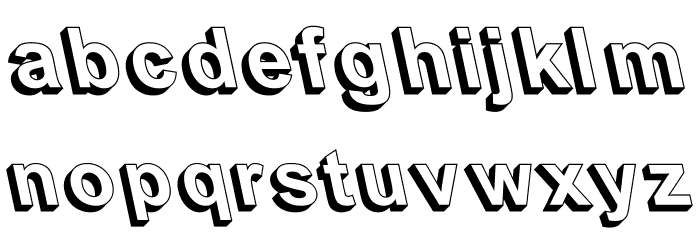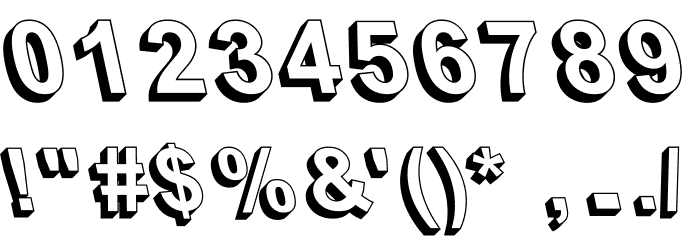
UKIJ Kufi 3D Font
This font features a bold, three-dimensional appearance with a strong shadow effect that gives each character a striking, standout look. The letters are uppercase and lowercase, with numerals and a variety of special characters. The design is clean and geometric, with a modern twist that adds depth and dimension. The shadowing is consistent across all characters, enhancing the overall boldness and making it suitable for eye-catching designs. The font's style is both decorative and functional, ideal for projects that require a strong visual impact.
A bold, 3D font with strong shadow effects, perfect for impactful designs.
- Proposed Projects: Ideal for posters, headlines, logos, and any design needing a bold, eye-catching typeface.